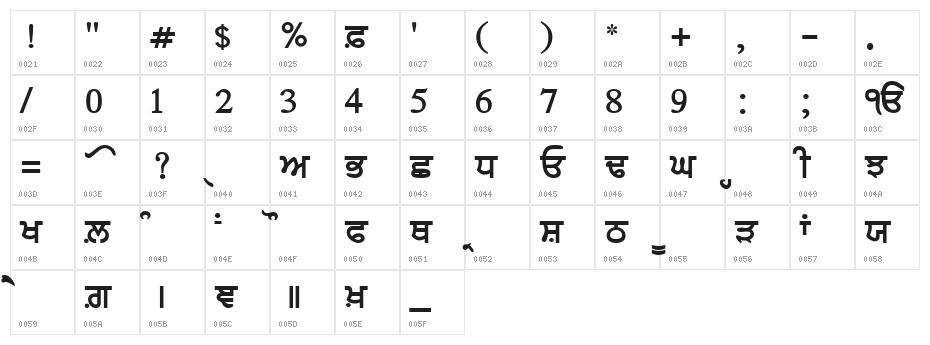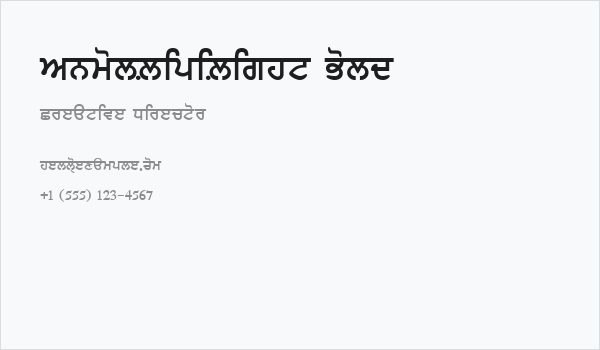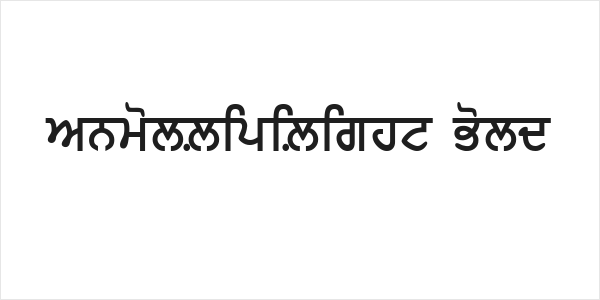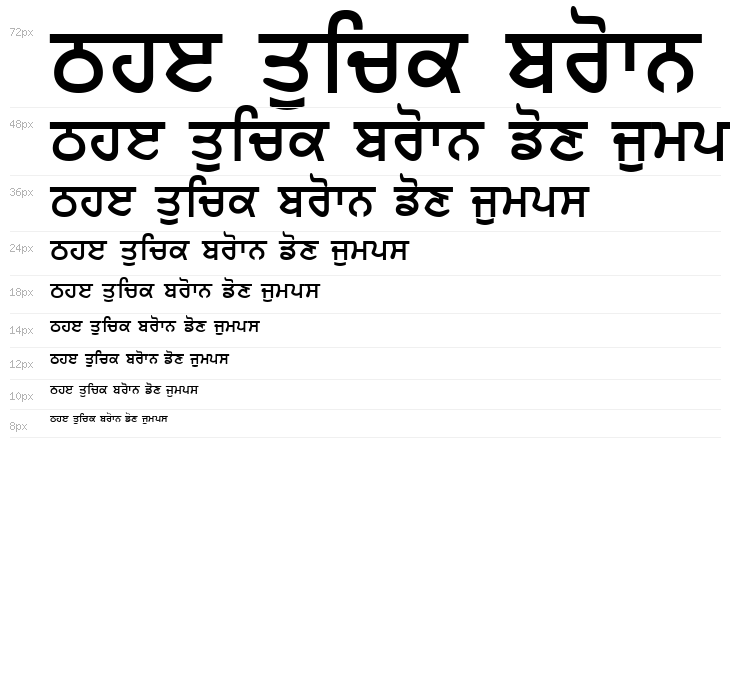
AnmolLipiLight Bold Font
AnmolLipiLight Bold Description
This font features a bold and striking design with a strong presence, characterized by its thick strokes and clear, legible characters. The script is elegant yet assertive, making it suitable for impactful headlines and titles. The numerals are distinct and easy to read, while the special characters maintain the same boldness, ensuring consistency throughout. The overall style is modern with a hint of traditional influence, making it versatile for various design needs.
| Proposed Projects | Ideal for headlines, posters, branding materials, and any project requiring a strong visual impact. |